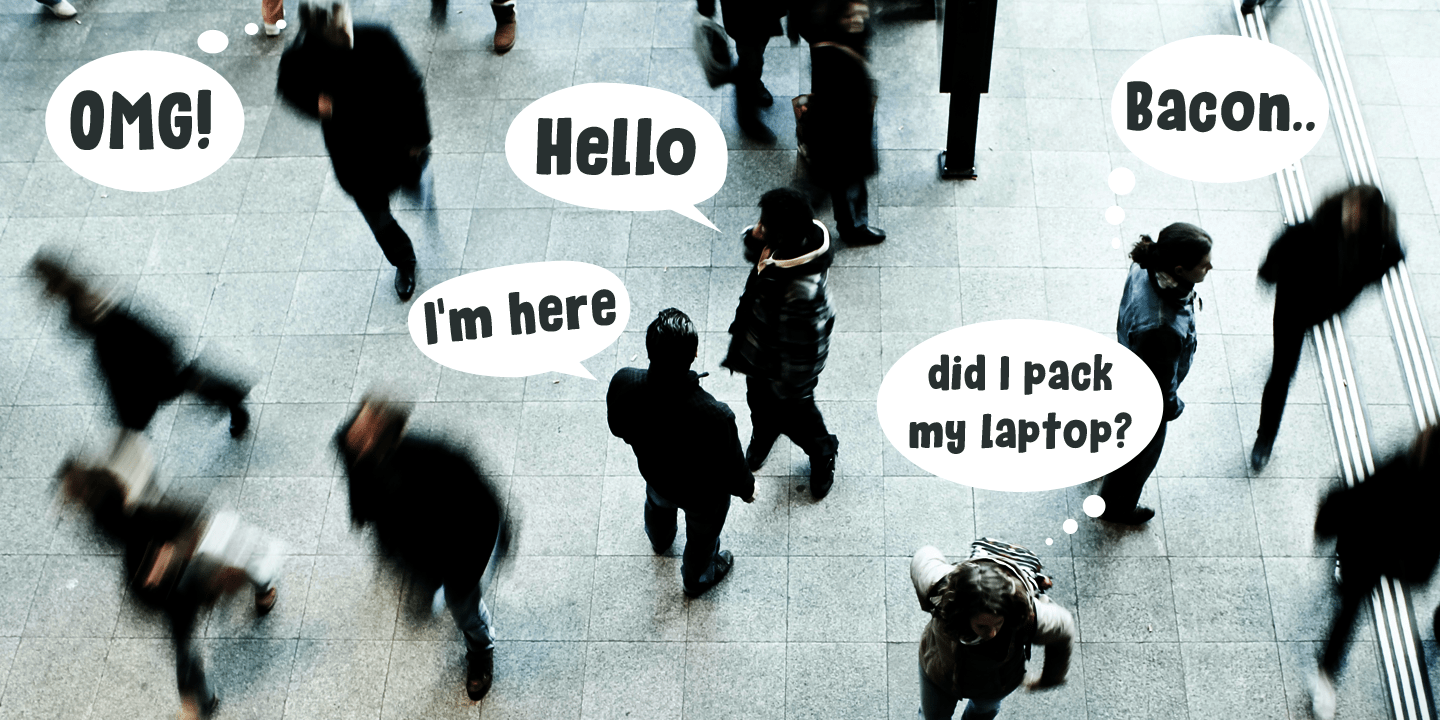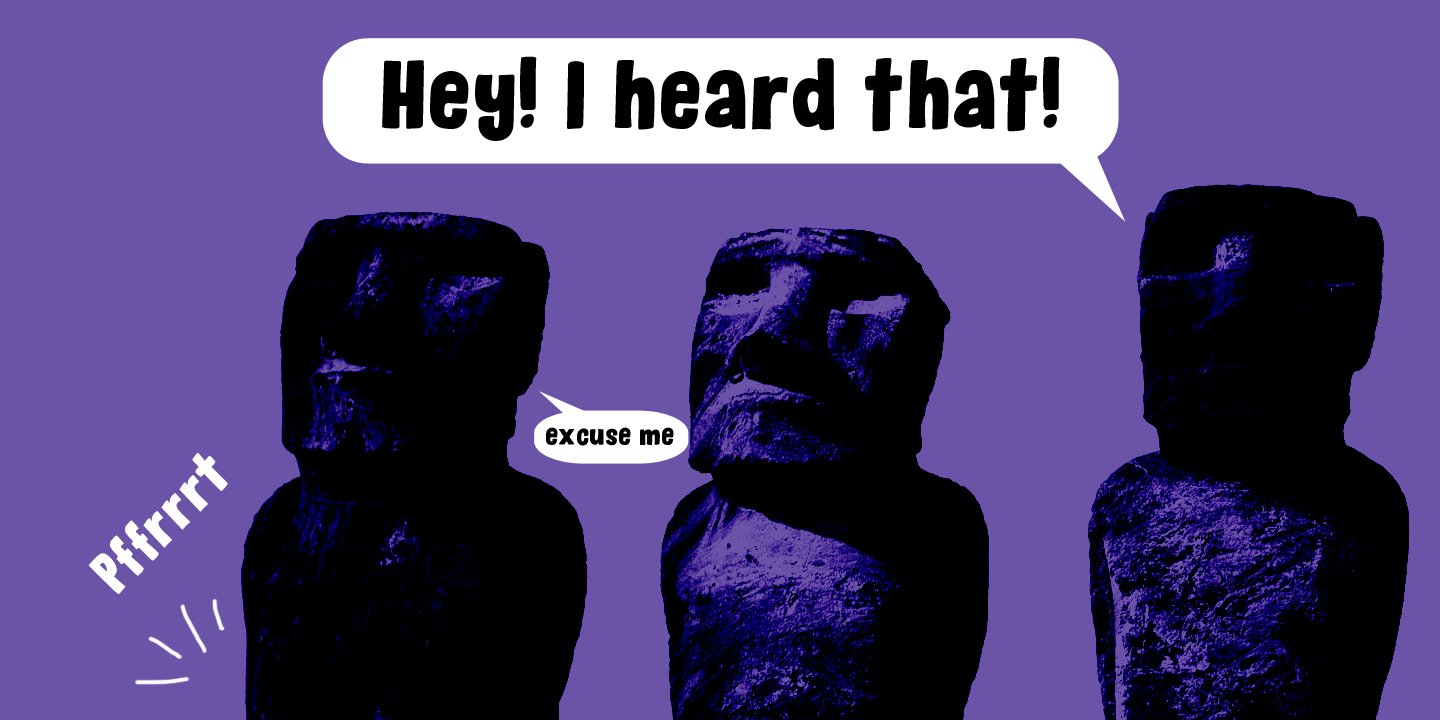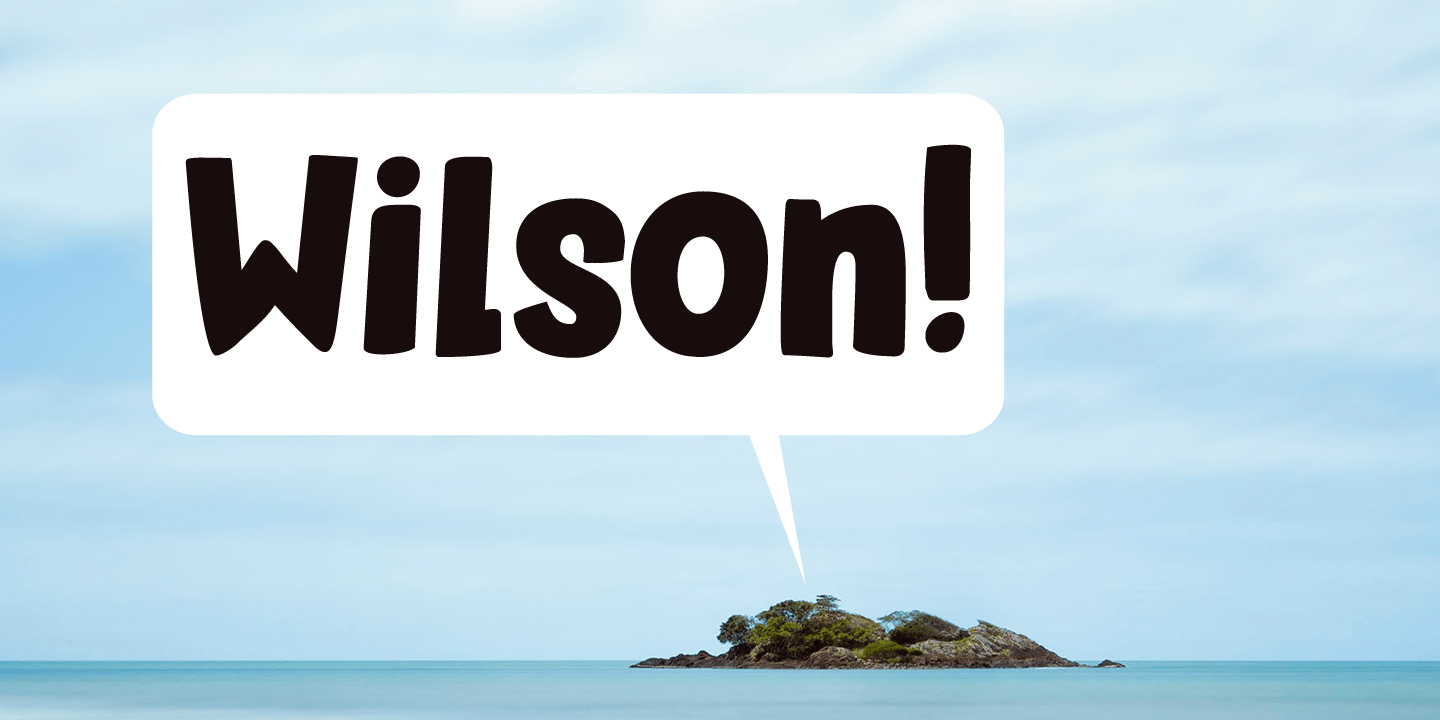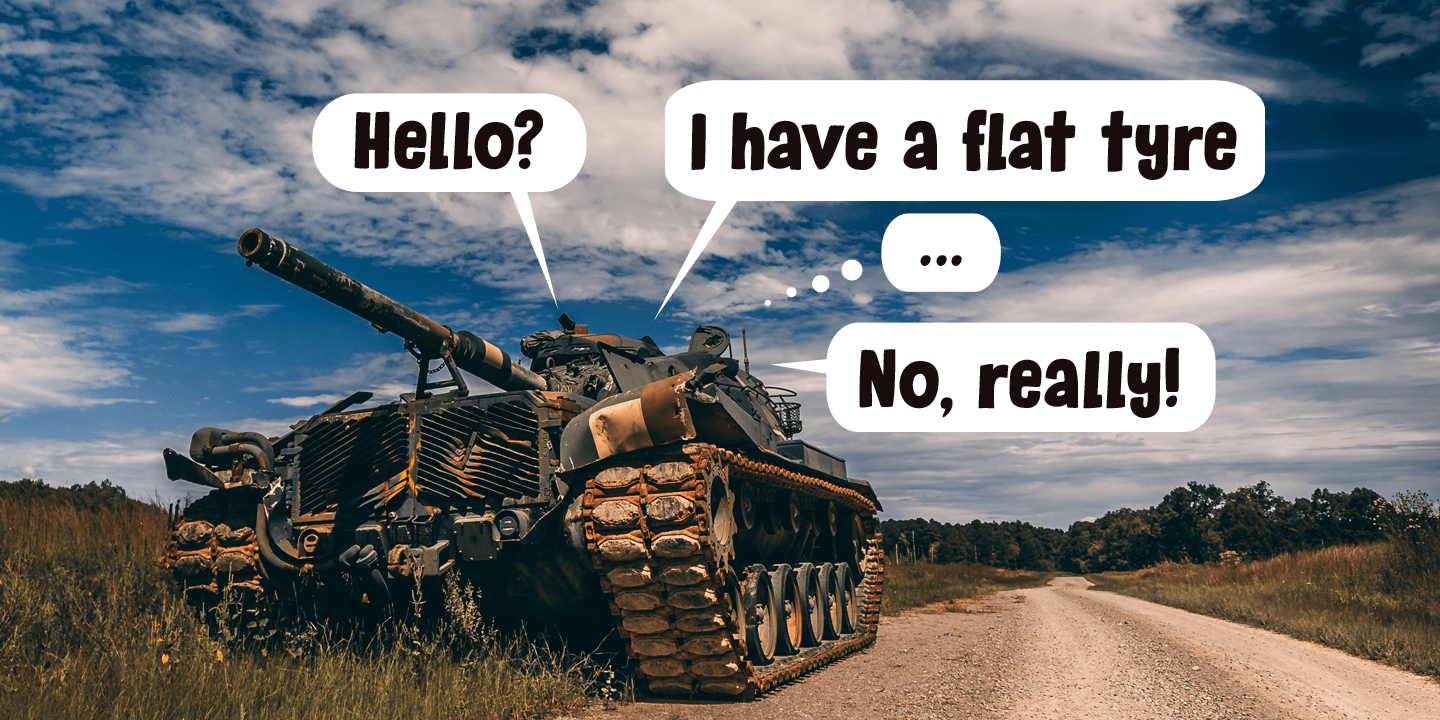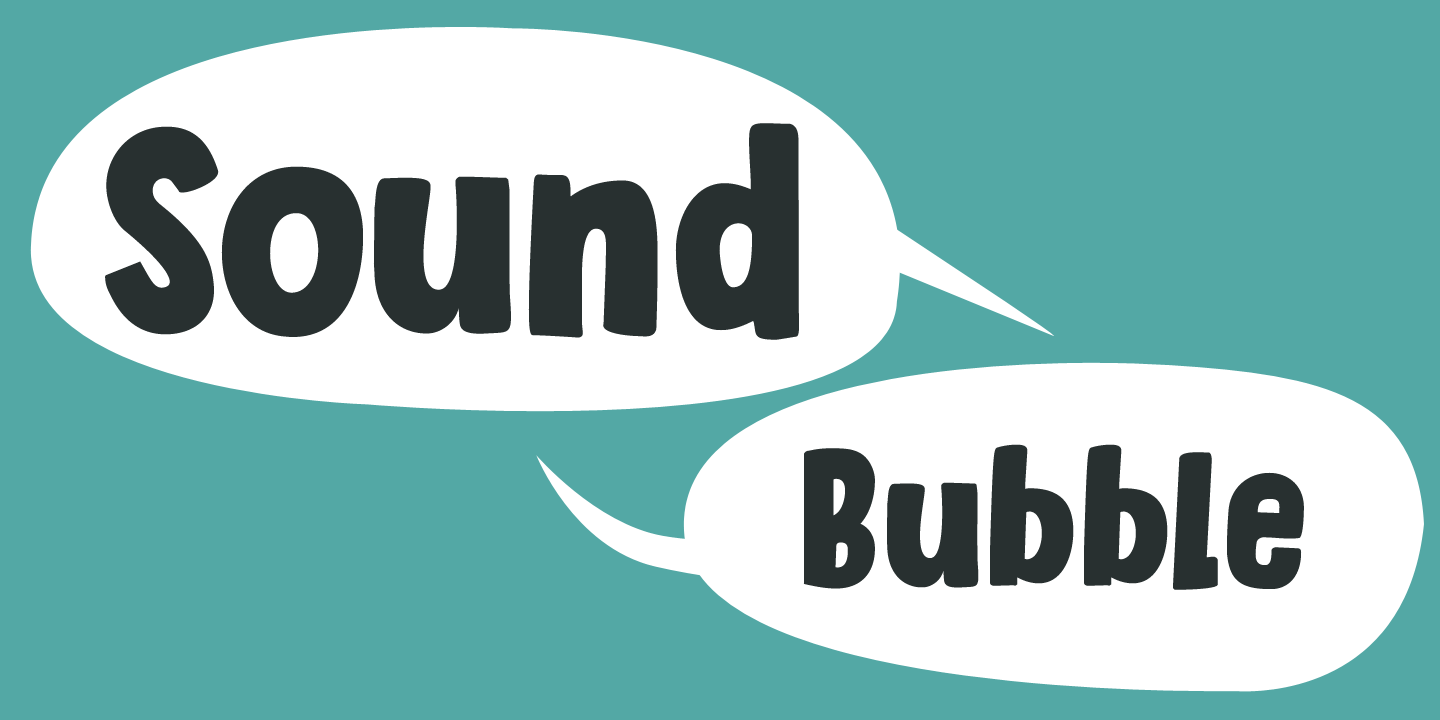
About Sound Bubble
Sound Bubble is a nice, uncomplicated cartoon-ish font. It will liven up your designs, especially book covers, posters and packaging. Comes in a normal and a dotty version.